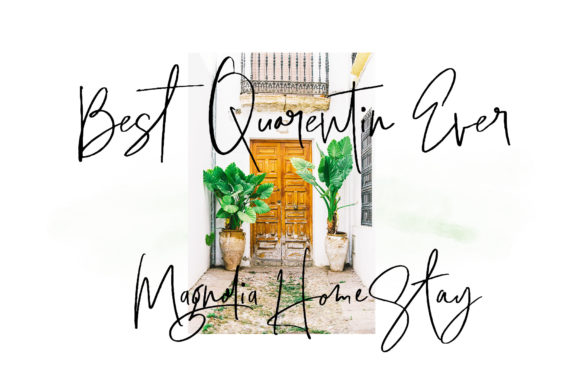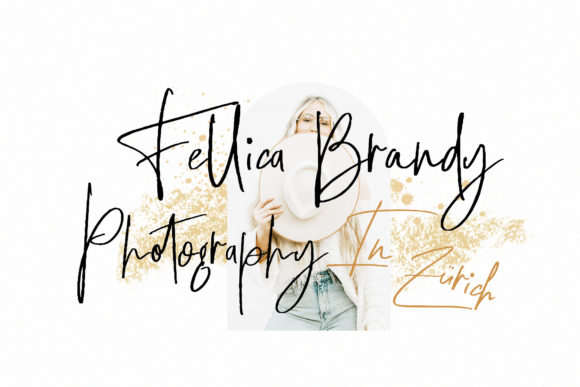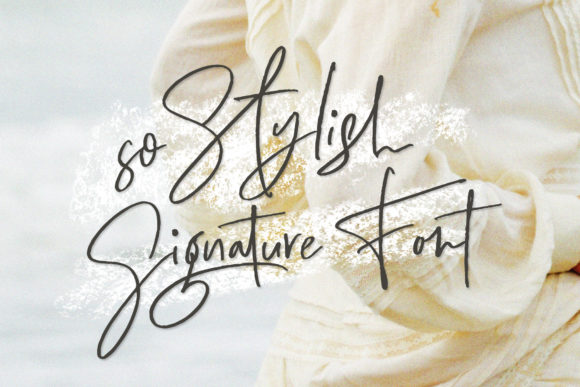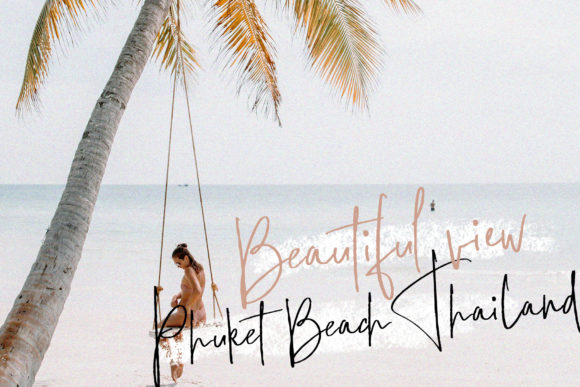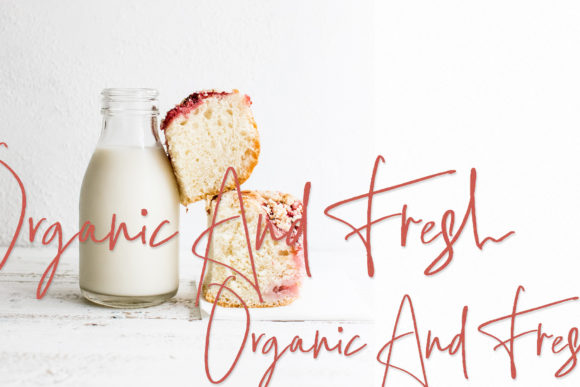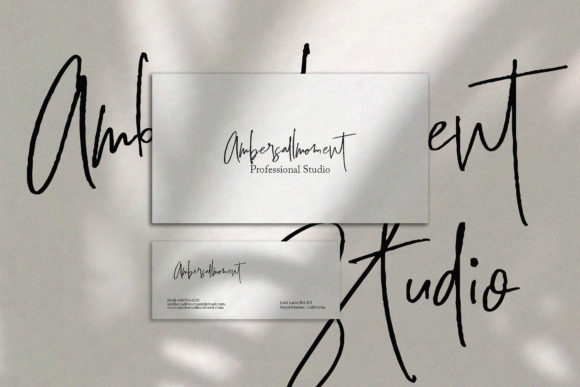
Introducing Ambersal Moment Font: Elevate Your Designs with Elegance
In the world of typography, few fonts manage to capture the essence of elegance and style as effectively as Ambersal Moment. This stunning script font is a game-changer for designers and crafters looking to add a touch of sophistication to their projects. Whether you’re working on wedding invitations, thank you cards, quotes, greeting cards, logos, or business cards, Ambersal Moment is the perfect choice.
What Makes Ambersal Moment Stand Out?
Ambersal Moment is more than just a font – it’s an experience. Its stylish and incredibly elegant design makes it an instant attention-grabber. The fluid strokes and beautiful swashes give it a handwritten feel that’s both personal and luxurious. This font is designed to make your designs stand out, adding a level of refinement that’s hard to achieve with standard fonts.
One of the key benefits of Ambersal Moment is its versatility. It’s suitable for a wide range of design projects, including:
- Wedding Invitations: Add a touch of romance and elegance to your wedding invitations with Ambersal Moment.
- Thank You Cards: Express your gratitude in style with beautifully designed thank you cards.
- Quotes: Make your quotes stand out with a font that’s both stylish and easy to read.
- Greeting Cards: Whether it’s a birthday, anniversary, or holiday greeting, Ambersal Moment adds a personal touch.
- Logos: Elevate your brand with a logo that exudes elegance and sophistication.
- Business Cards: Make a lasting impression with business cards that feature Ambersal Moment.
Why Choose Ambersal Moment?
With so many fonts available, why should you choose Ambersal Moment? Here are a few compelling reasons:
- Unique Design: Ambersal Moment offers a unique and distinctive look that sets it apart from more common fonts.
- Elegance: Its elegant design makes it perfect for projects that require a touch of sophistication.
- Versatility: Use it across a variety of projects, from wedding invitations to business cards.
- Easy to Use: PUA encoding makes it easy to access and use all glyphs and swashes.
Tips for Using Ambersal Moment Effectively
To get the most out of Ambersal Moment, consider the following tips:
- Pair it with Complementary Fonts: Use Ambersal Moment with simpler fonts to create visual contrast and make your design stand out.
- Experiment with Swashes: Take advantage of the beautiful swashes to add a personal touch to your designs.
- Adjust Size and Color: Play with different sizes and colors to find the perfect combination for your project.
Ambersal Moment is a stylish and elegant script font that’s perfect for designers and crafters looking to elevate their projects. With its versatile design, PUA encoding, and ease of use, it’s an excellent choice for a wide range of applications. Whether you’re working on wedding invitations, business cards, or quotes, Ambersal Moment is sure to make your designs shine. Add a touch of elegance and sophistication to your work with this beautiful font.